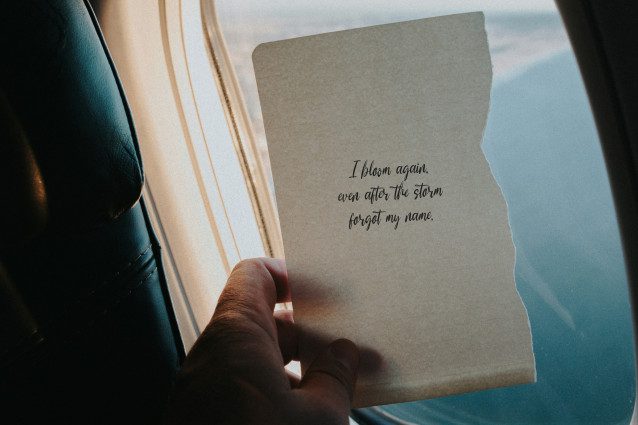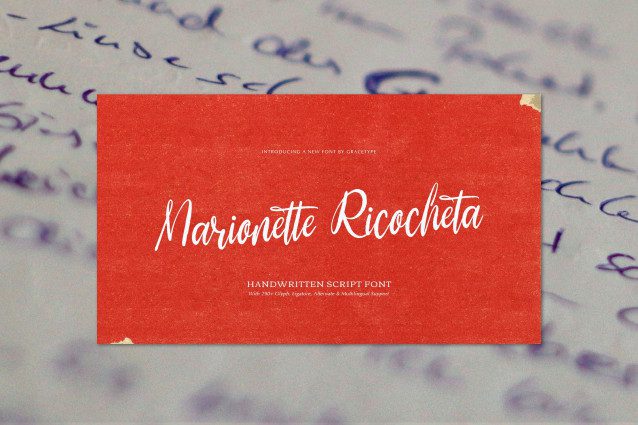
Marionette Ricocheta Script Font
Marionette Ricocheta Script Font | Handwritten Script, from Gracetypestudio, suitable for any projects such as: logos, branding projects, homeware designs, product packaging, mugs, quotes, posters, shopping bags, t-shirts, book covers, name card, invitation cards, greeting cards, label, photography, watermark, special events, and all your other lovely projects that need a Script taste.